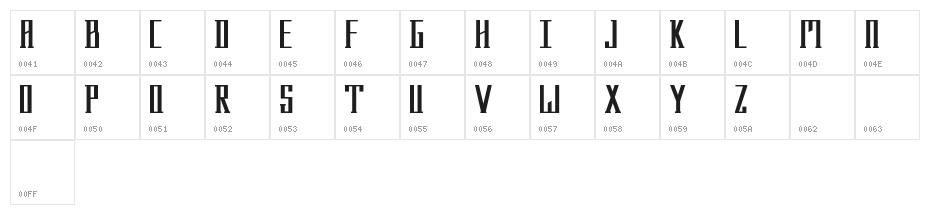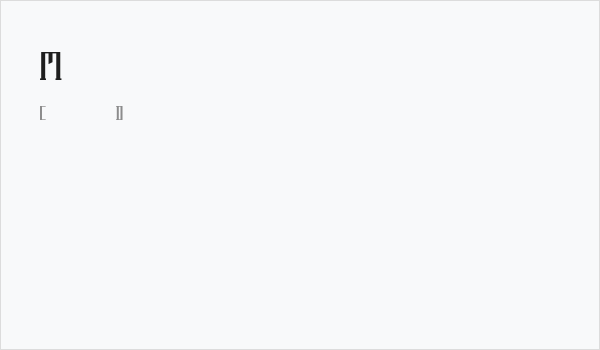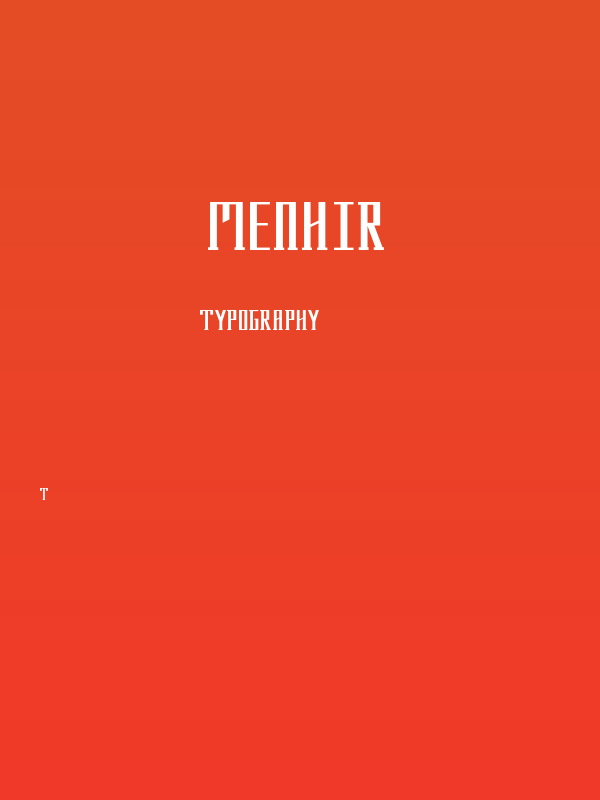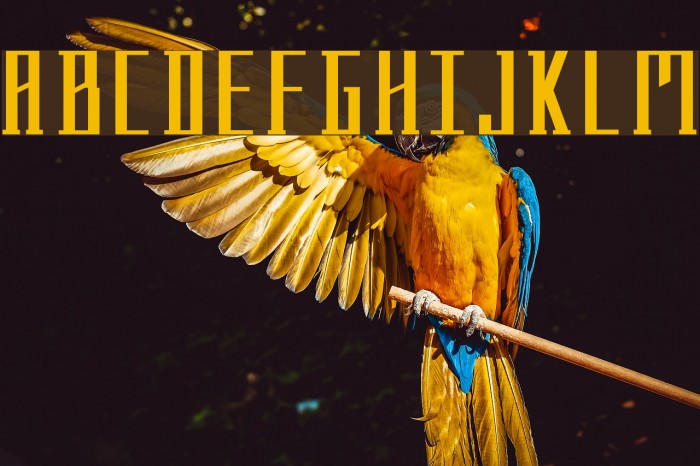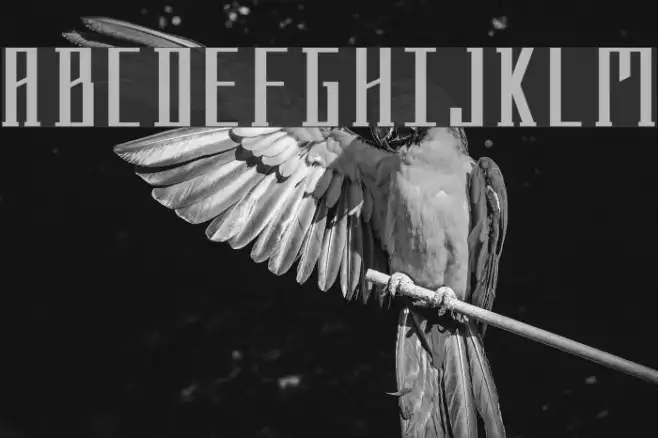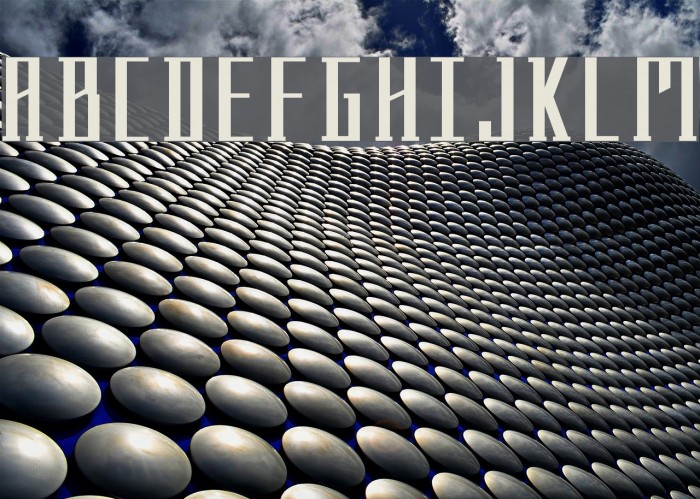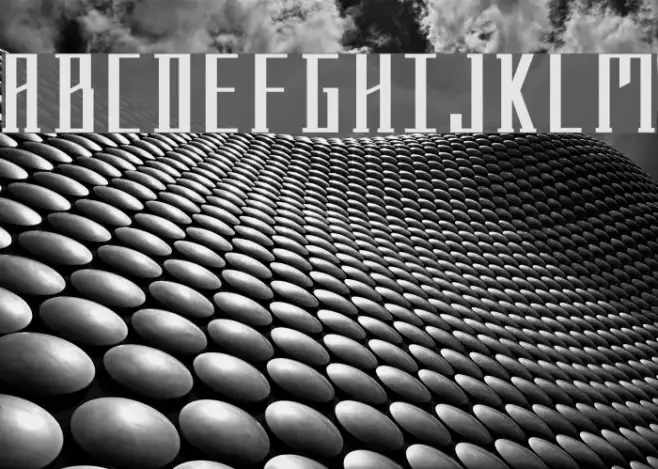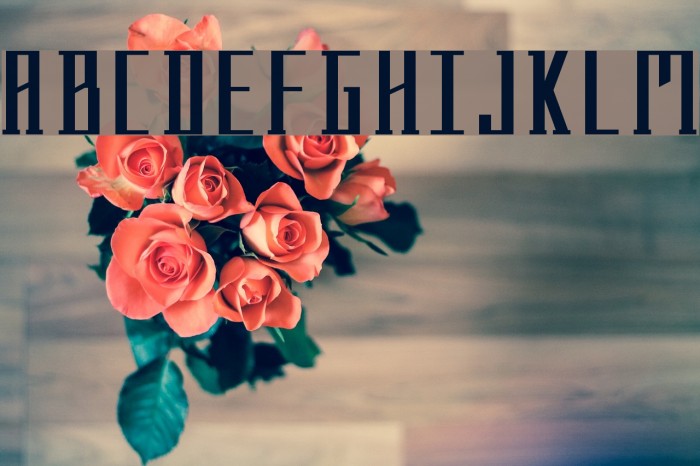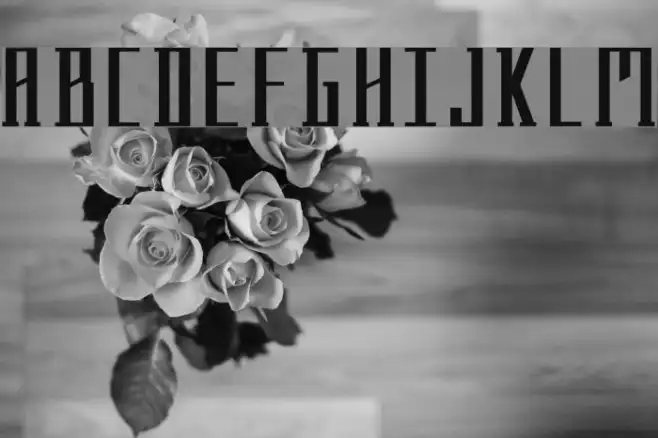
Menhir Font
Menhir Description
This font features a bold, geometric design with strong vertical and horizontal lines, creating a sense of stability and strength. The characters are constructed with a uniform stroke width, giving them a monolithic appearance. The uppercase letters are particularly striking, with sharp angles and a blocky aesthetic that commands attention. The lowercase letters maintain this robust style, ensuring consistency across the typeface. The numerals and special characters are designed to match the boldness of the alphabet, making this font suitable for impactful displays.
| Proposed Projects | Ideal for posters, headlines, logos, and branding materials that require a strong visual impact. |